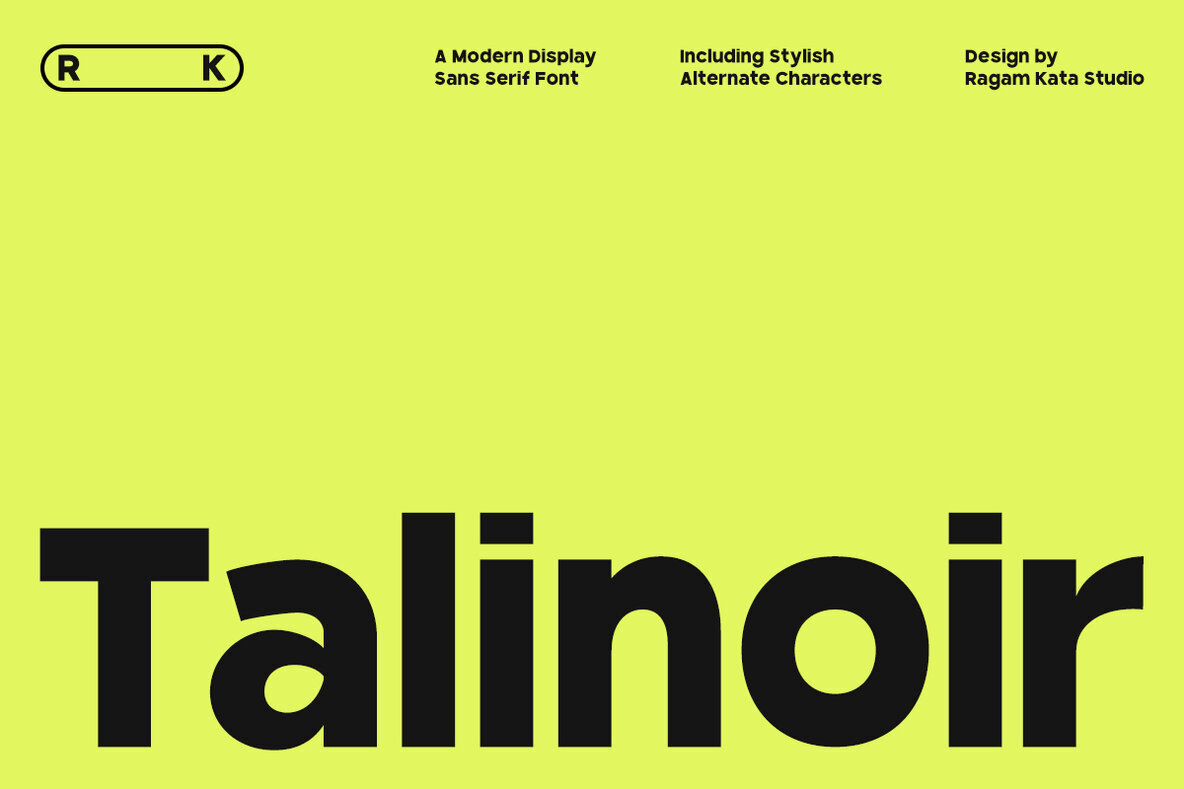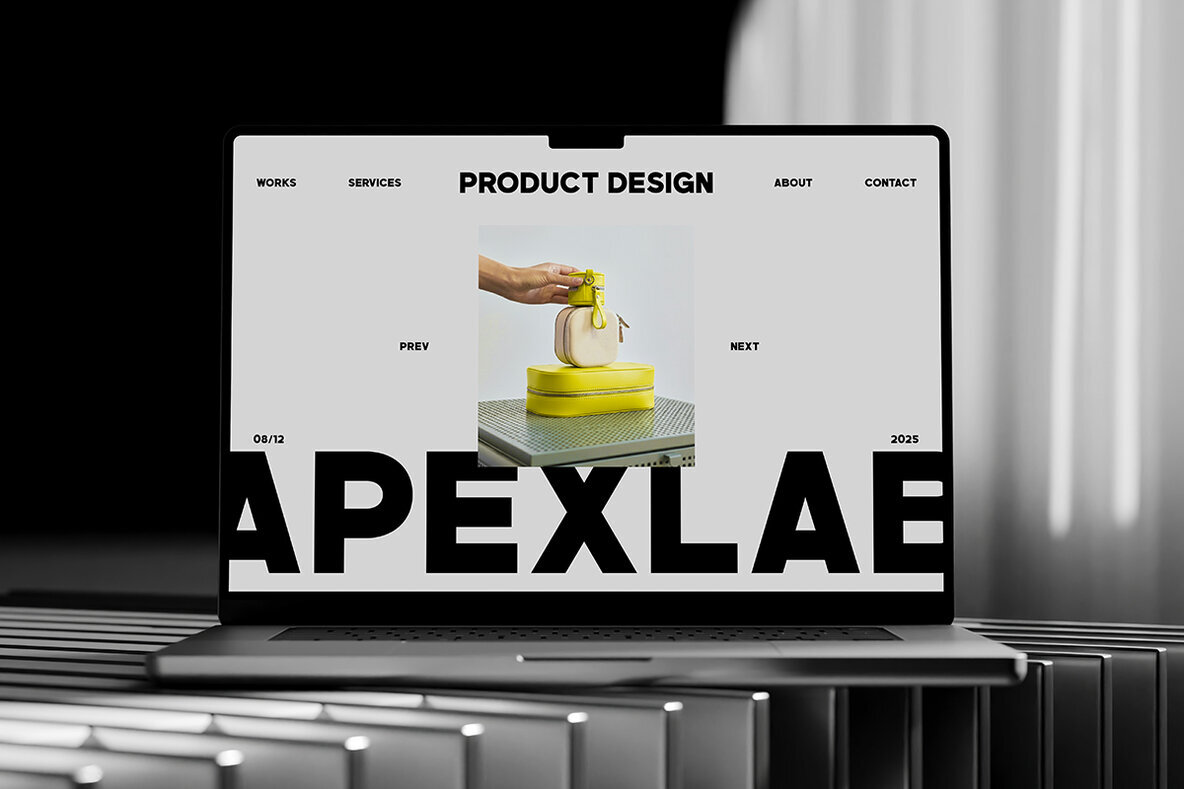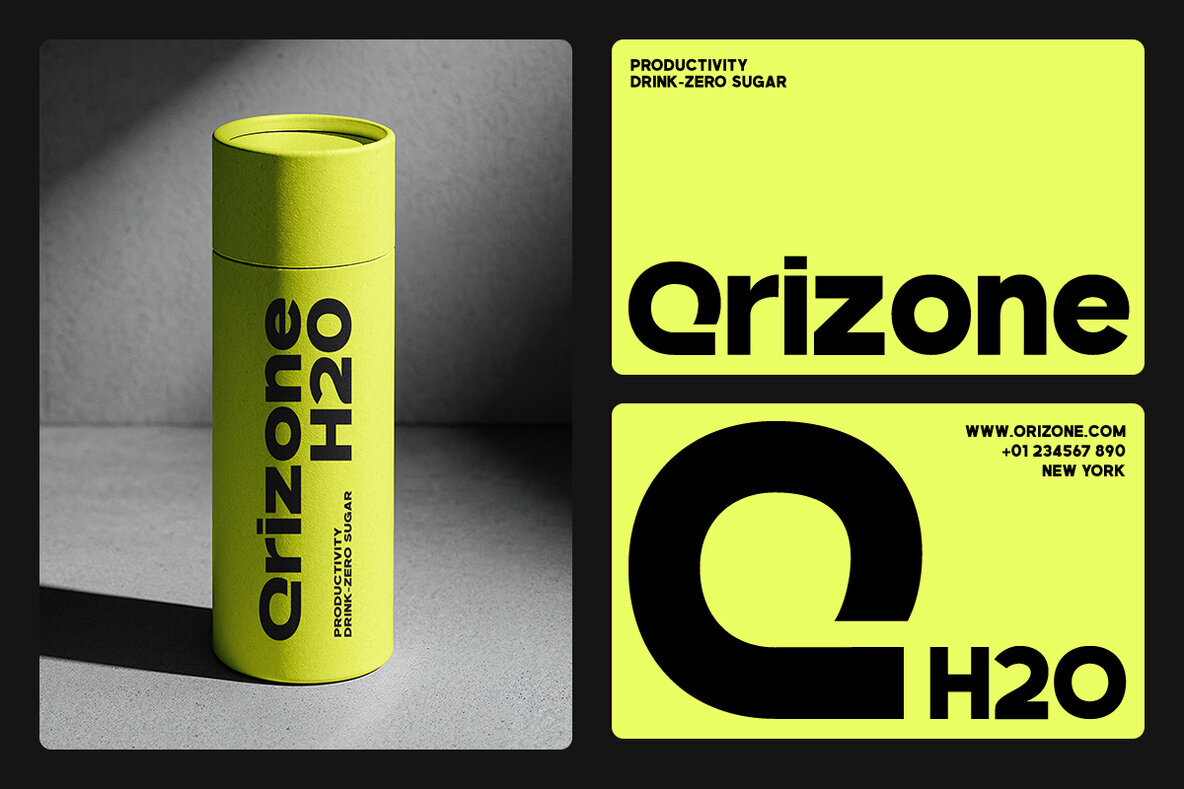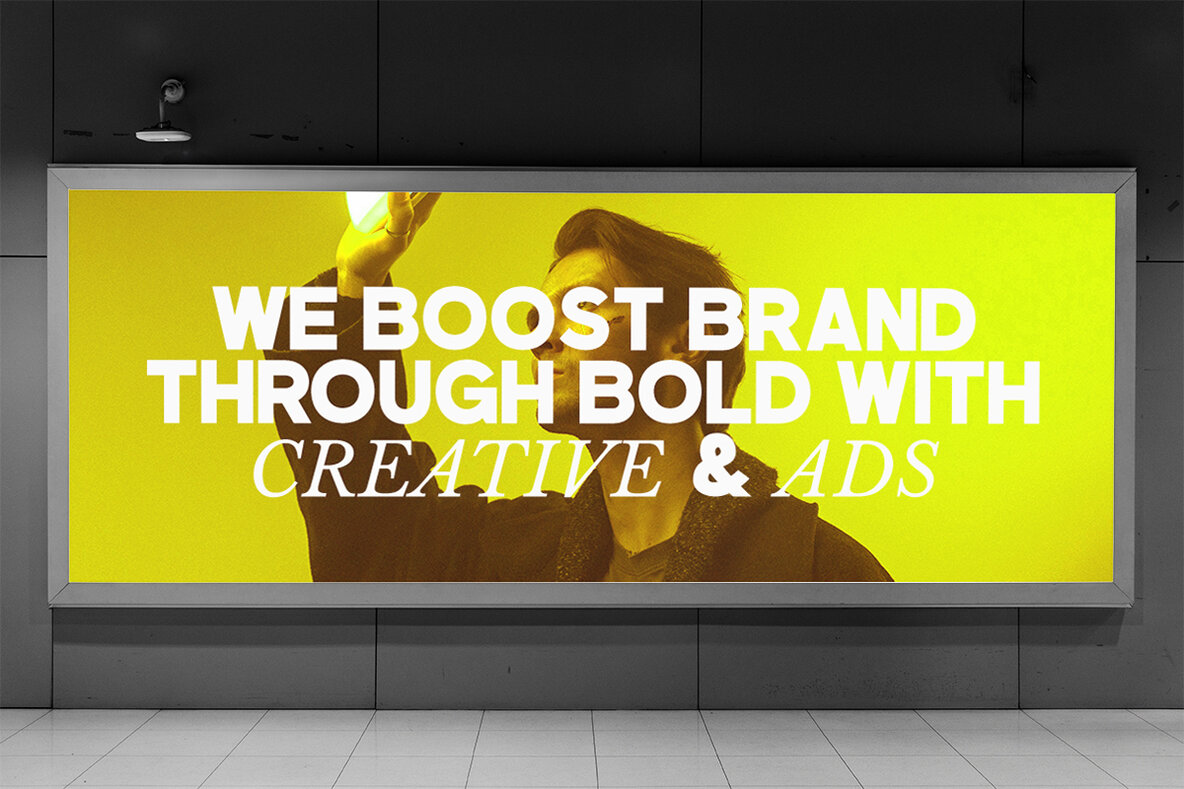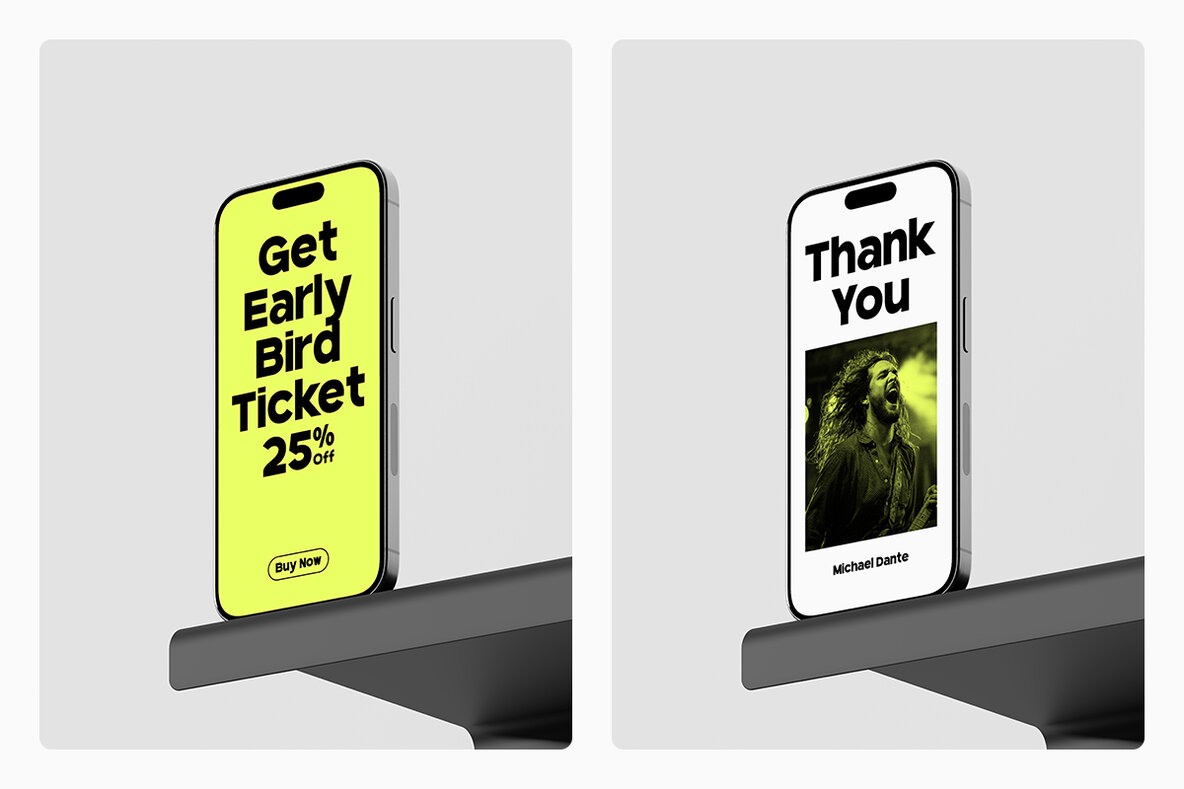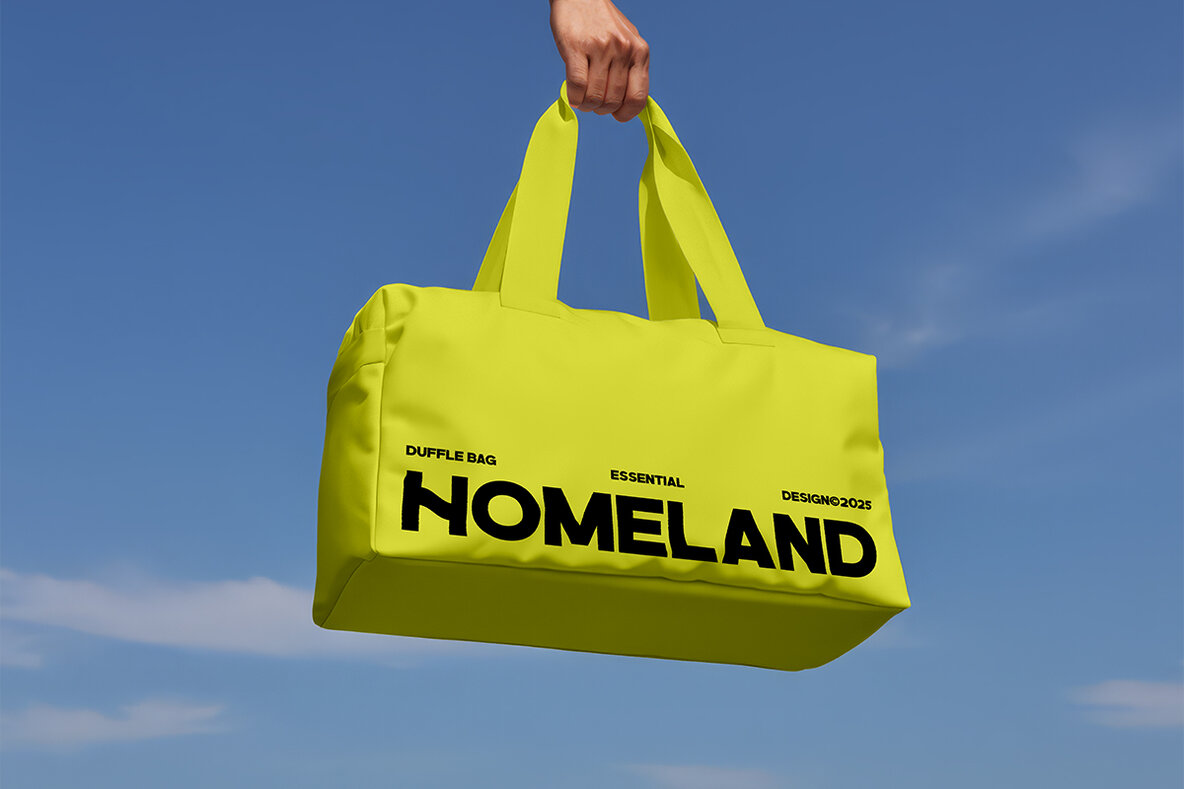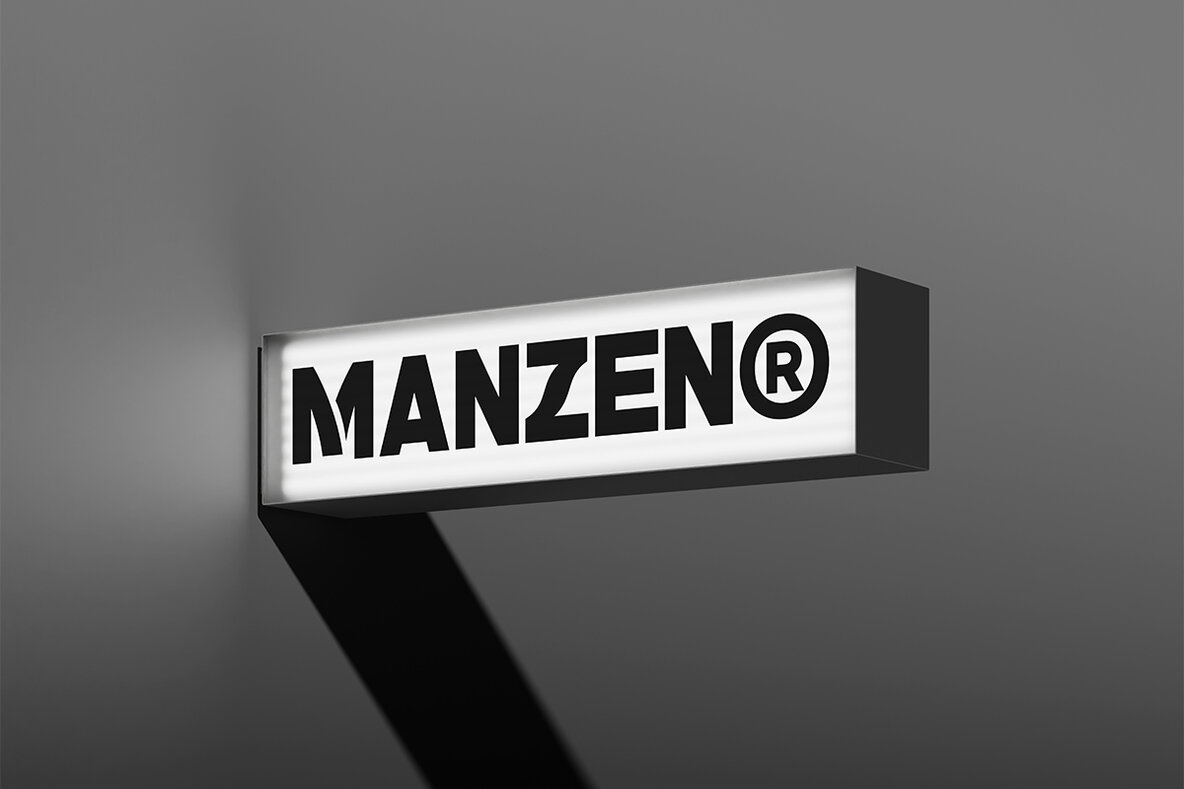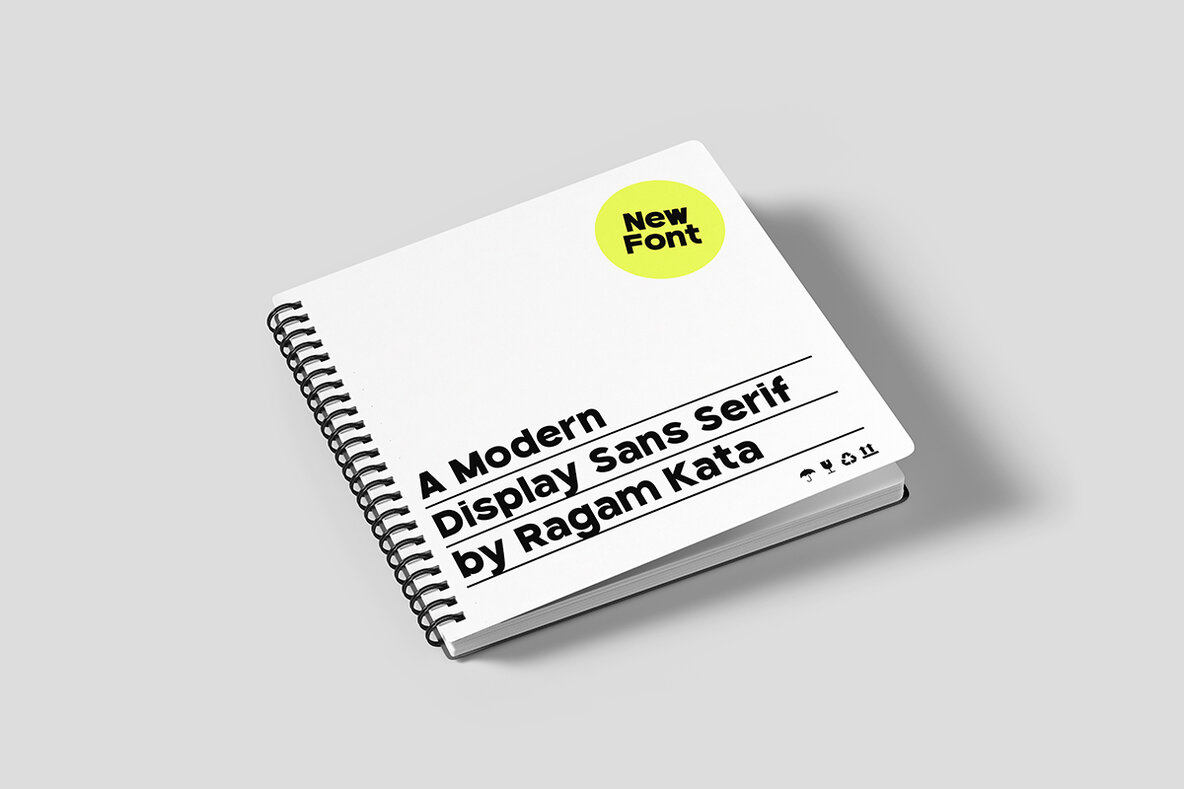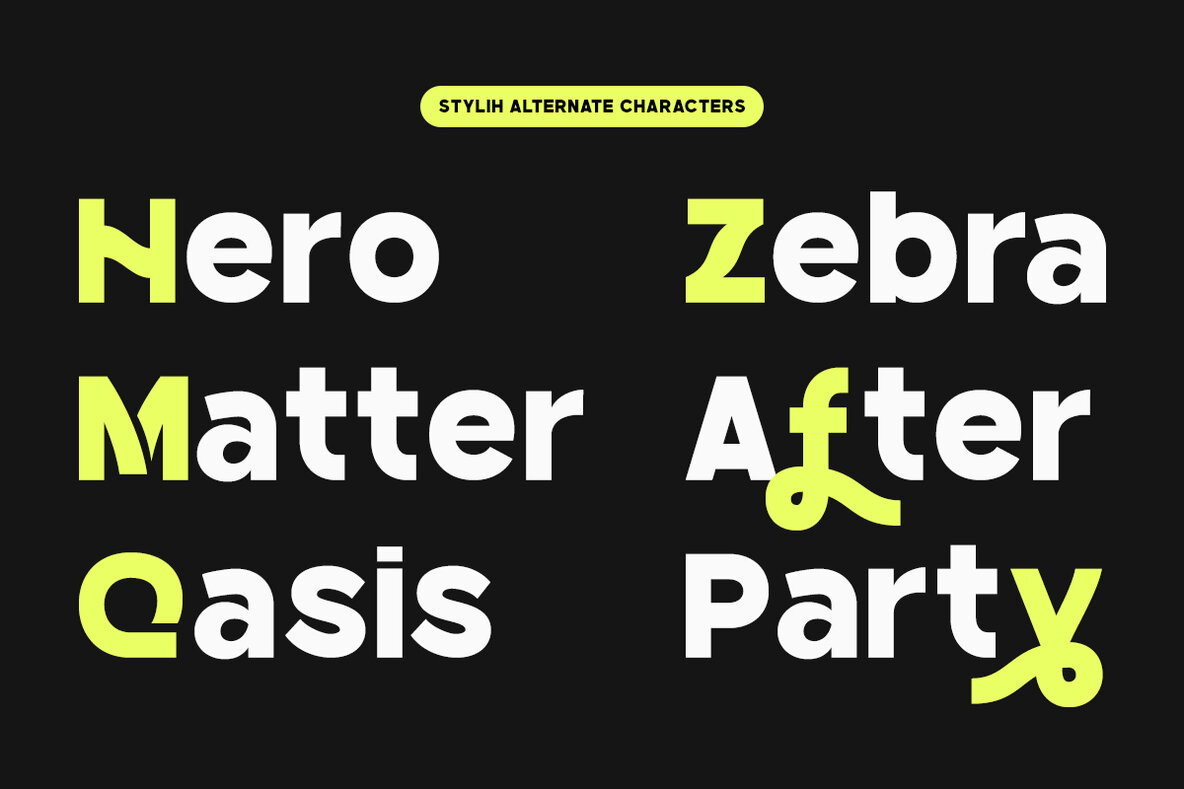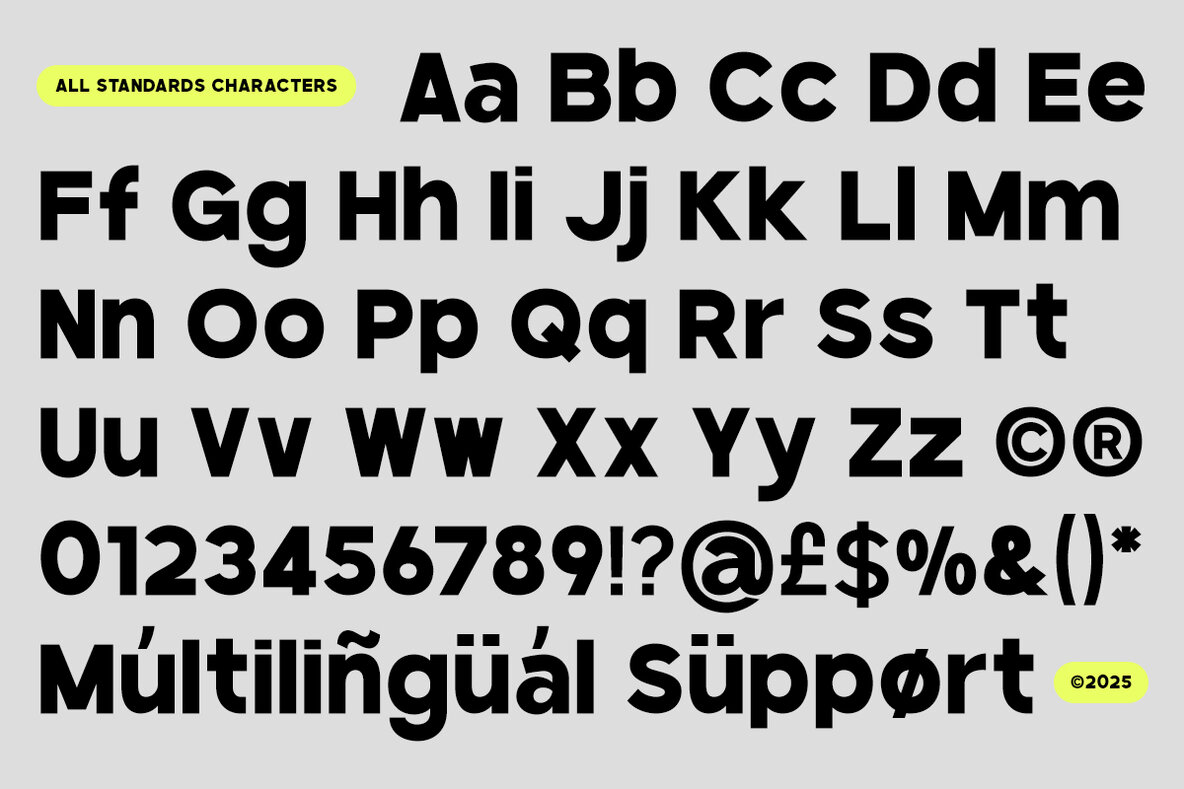
Talinoir Font
Talinoir Regular
Talinoir is a display sans serif font crafted for designers who value clarity and confidence. Defined by its sharp geometry, clean lines, and distinct alternate letterforms, Talinoir is well-suited for headlines, posters, logos, and editorial compositions. The font's visual weight brings focus to any project while keeping the overall aesthetic refined and minimal. This typeface balances boldness with precision. Its professional tone and adaptable structure make it a reliable choice for both digital interfaces and print layouts. Talinoir’s subtle character variations add visual interest while maintaining legibility, offering creative flexibility for a variety of branding and communication needs. Features:Talinoir: Bold Sans Serif for Modern Branding